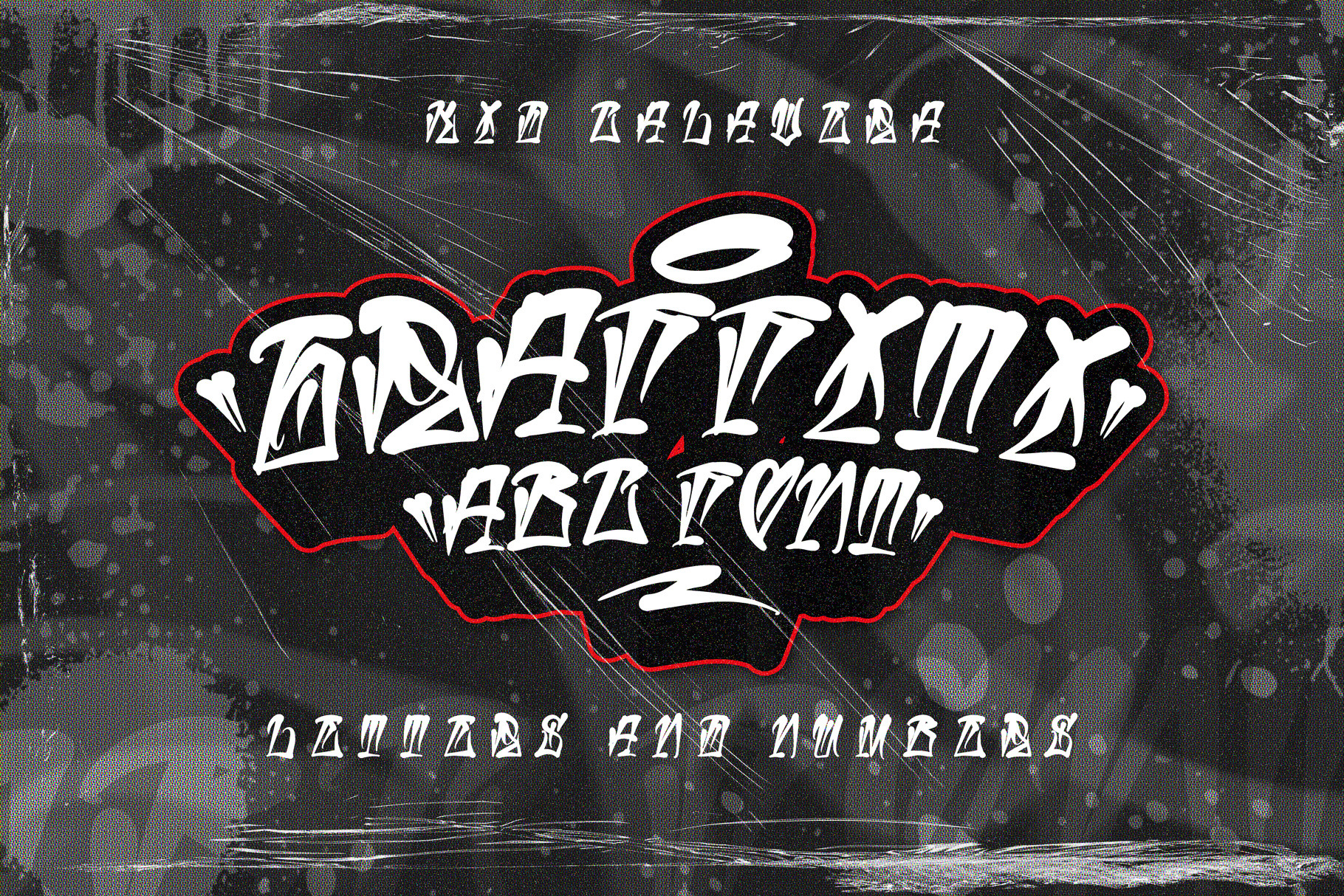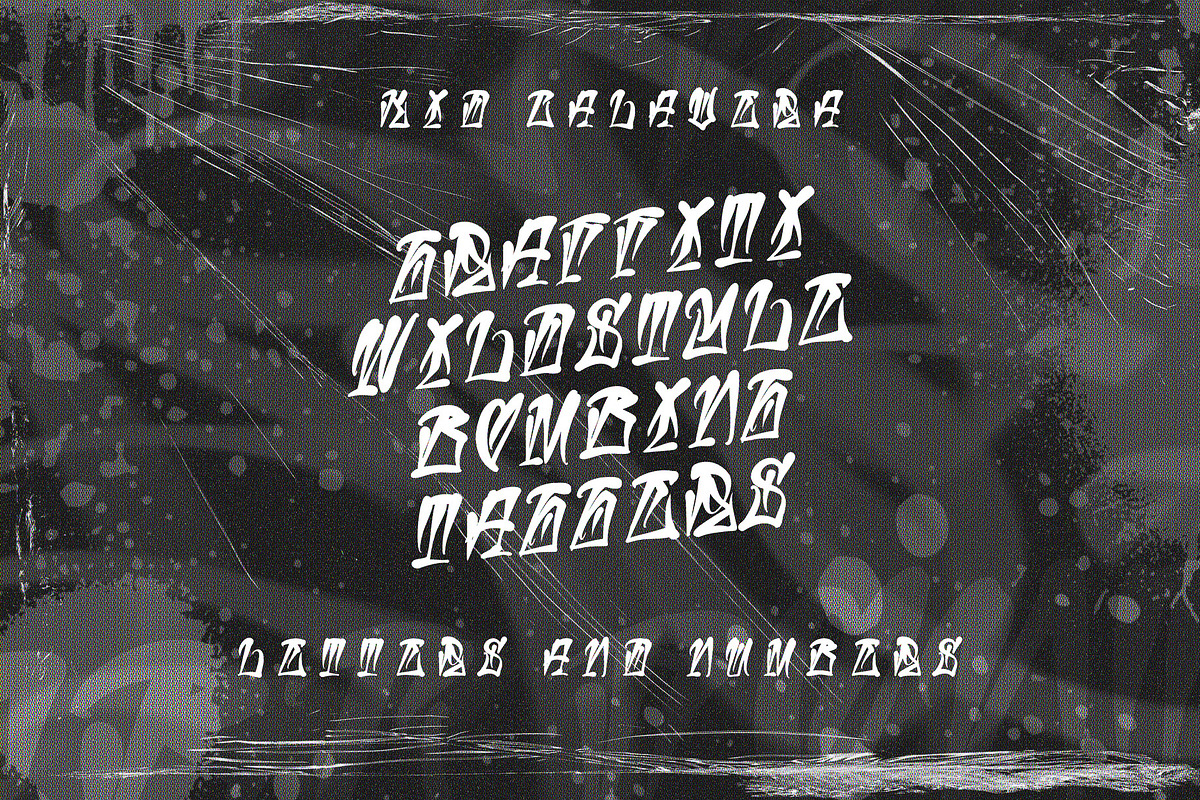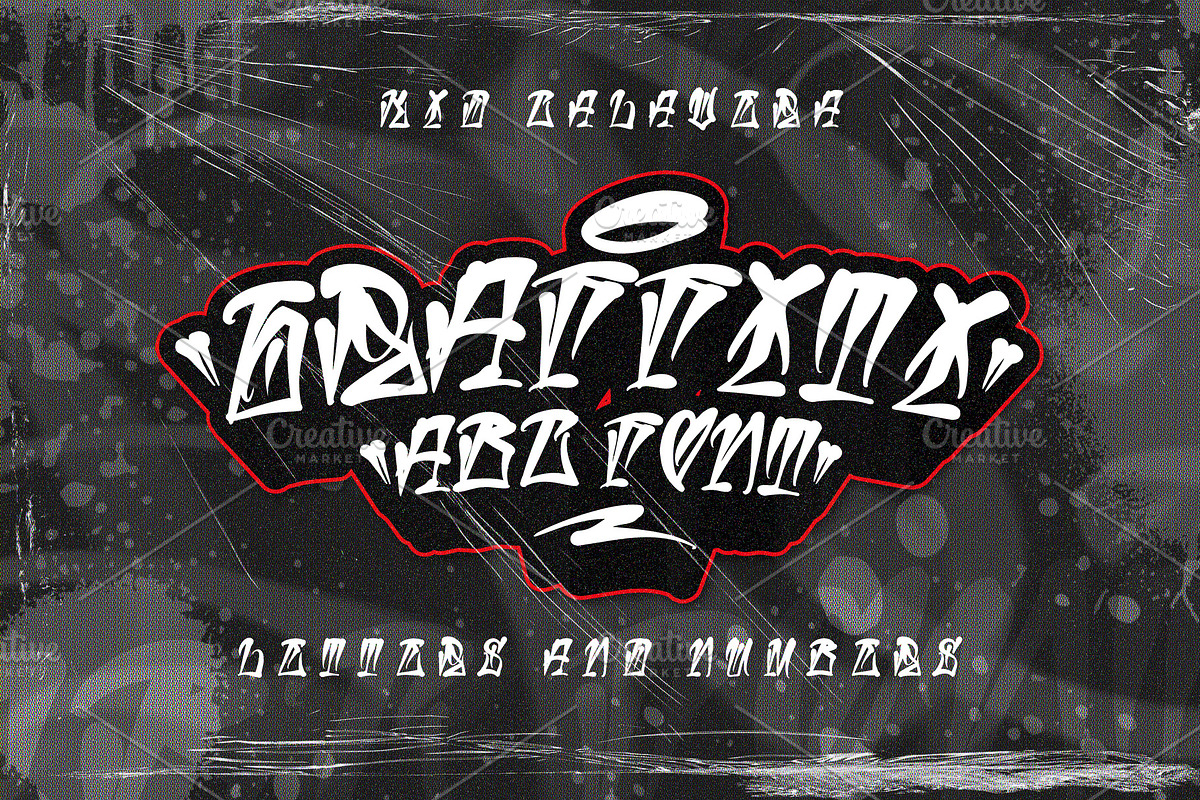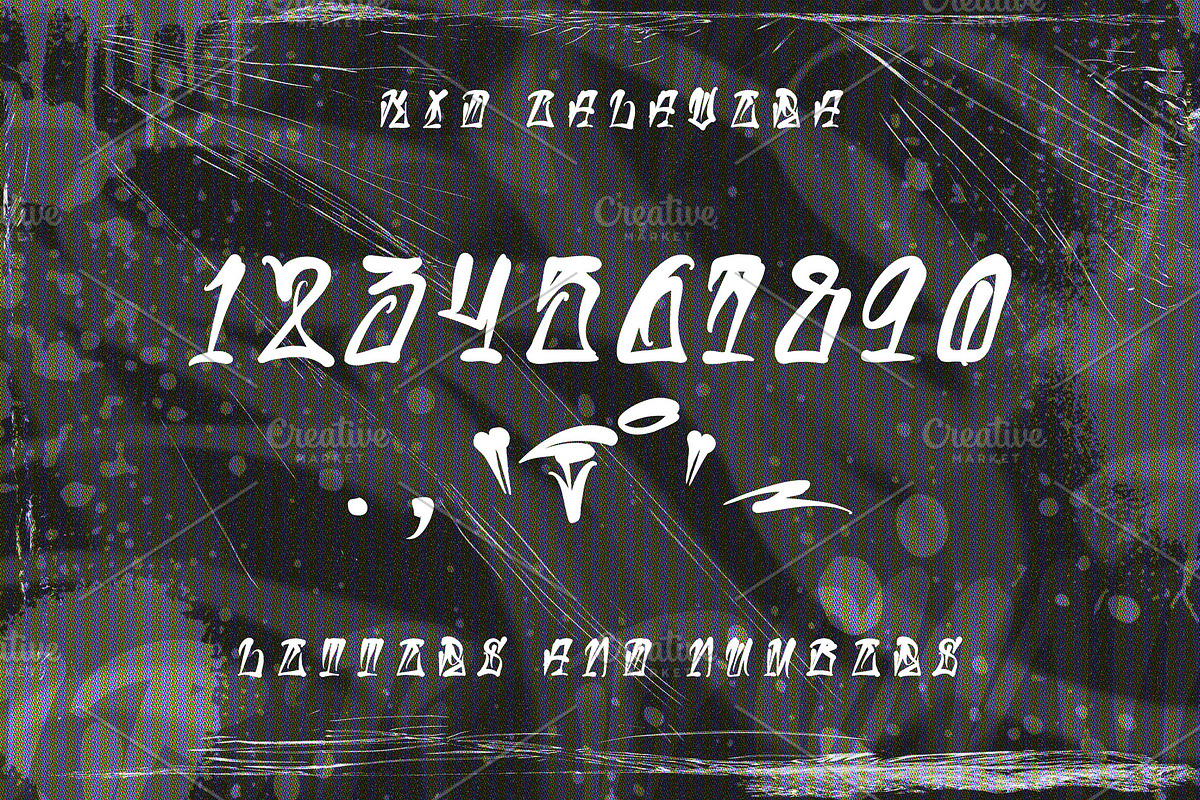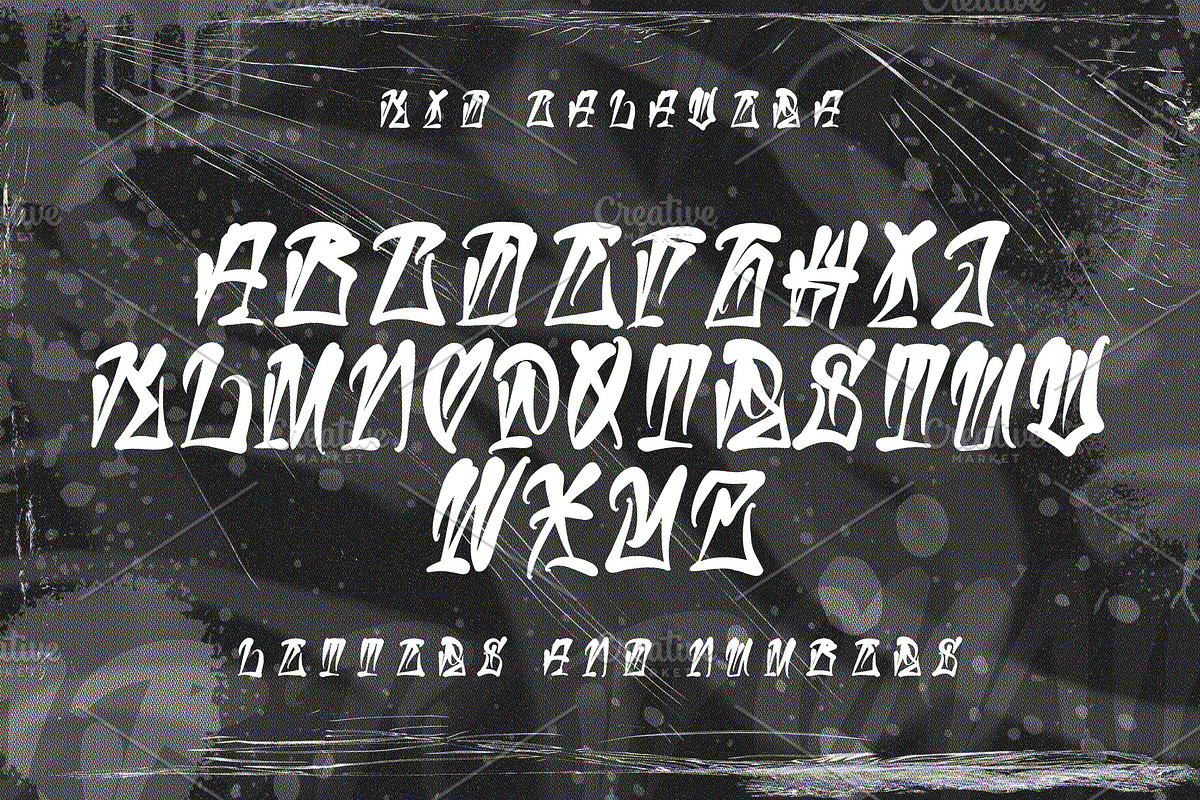
ABC Graffiti Font
ABC Graffiti font is the modern handwriting that takes inspiration from urban design and graffiti taggs. With a unique style that you can apply in your design project. This font made with tenacious basic shapes, power visuality, old-school movement, and modern minimal style.